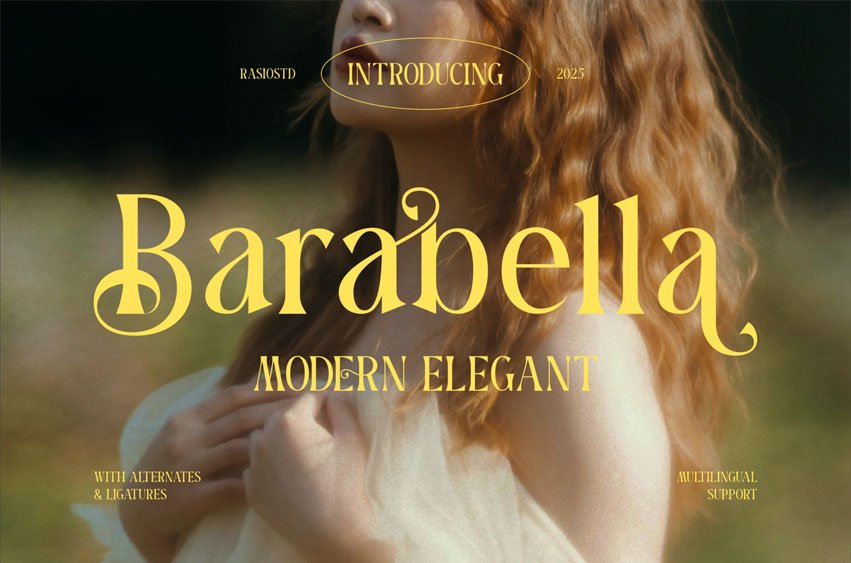
Barabella Font is a modern, elegant serif font that combines timeless sophistication with expressive artistic flourishes. With its luxurious curves, refined contrast, and beautiful ligatures and alternates, Barabella brings a high-fashion aesthetic to your typography. It’s perfect for creating a romantic, feminine, and classic look that’s both graceful and powerful. Each glyph is thoughtfully designed to balance elegance with legibility, making it ideal for editorial layouts, branding, and upscale packaging.
Relevance and Use Cases is perfect for wedding invitation, luxury branding, cosmetic packaging, beauty logo, fashion editorial, elegant quote design, romantic card, boutique identity, upscale product label, feminine branding, vintage modern aesthetic, magazine headline, calligraphy-style serif, decorative typography, perfume packaging, high-end fashion brand, floral themed branding, bridal shower card, art gallery poster.